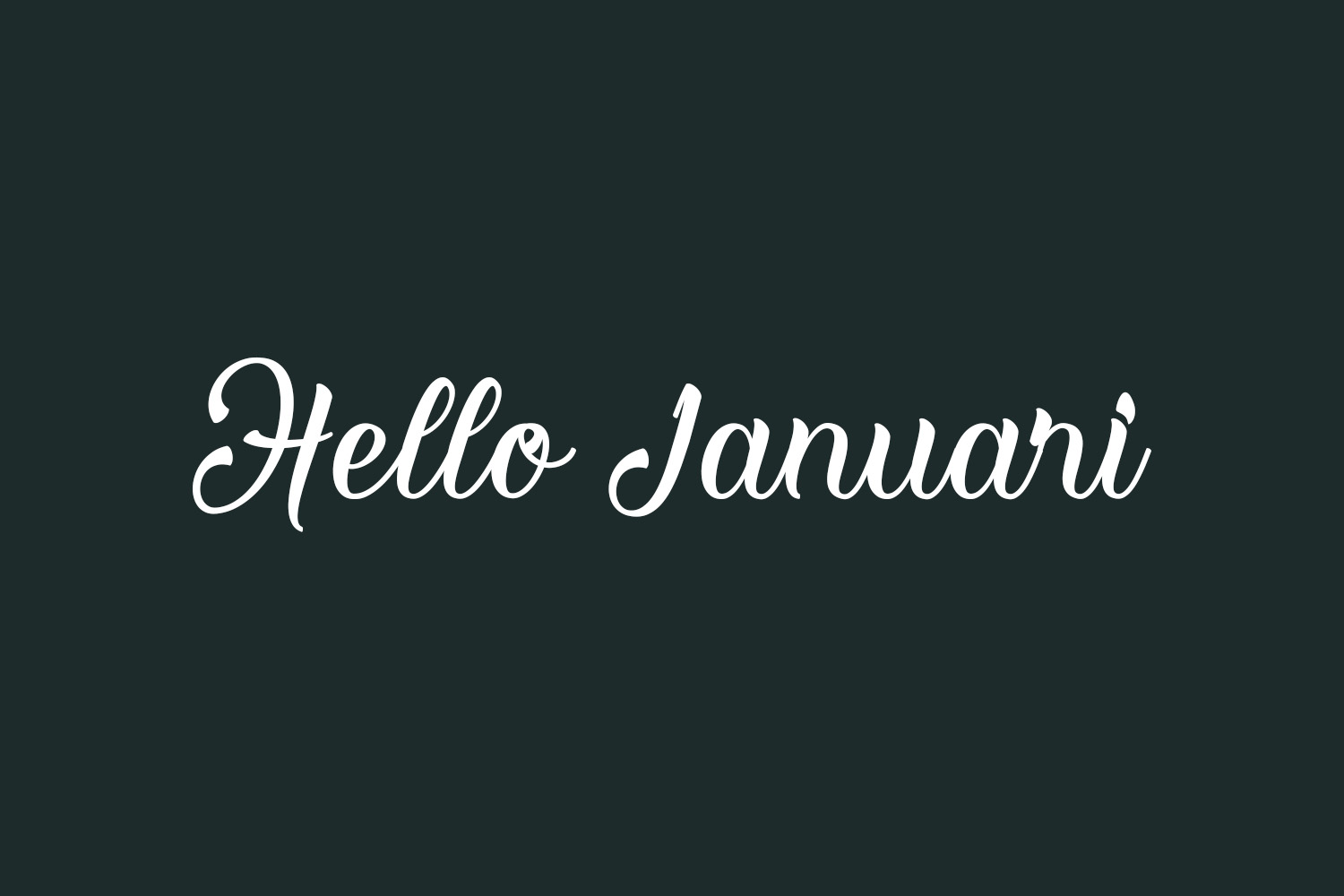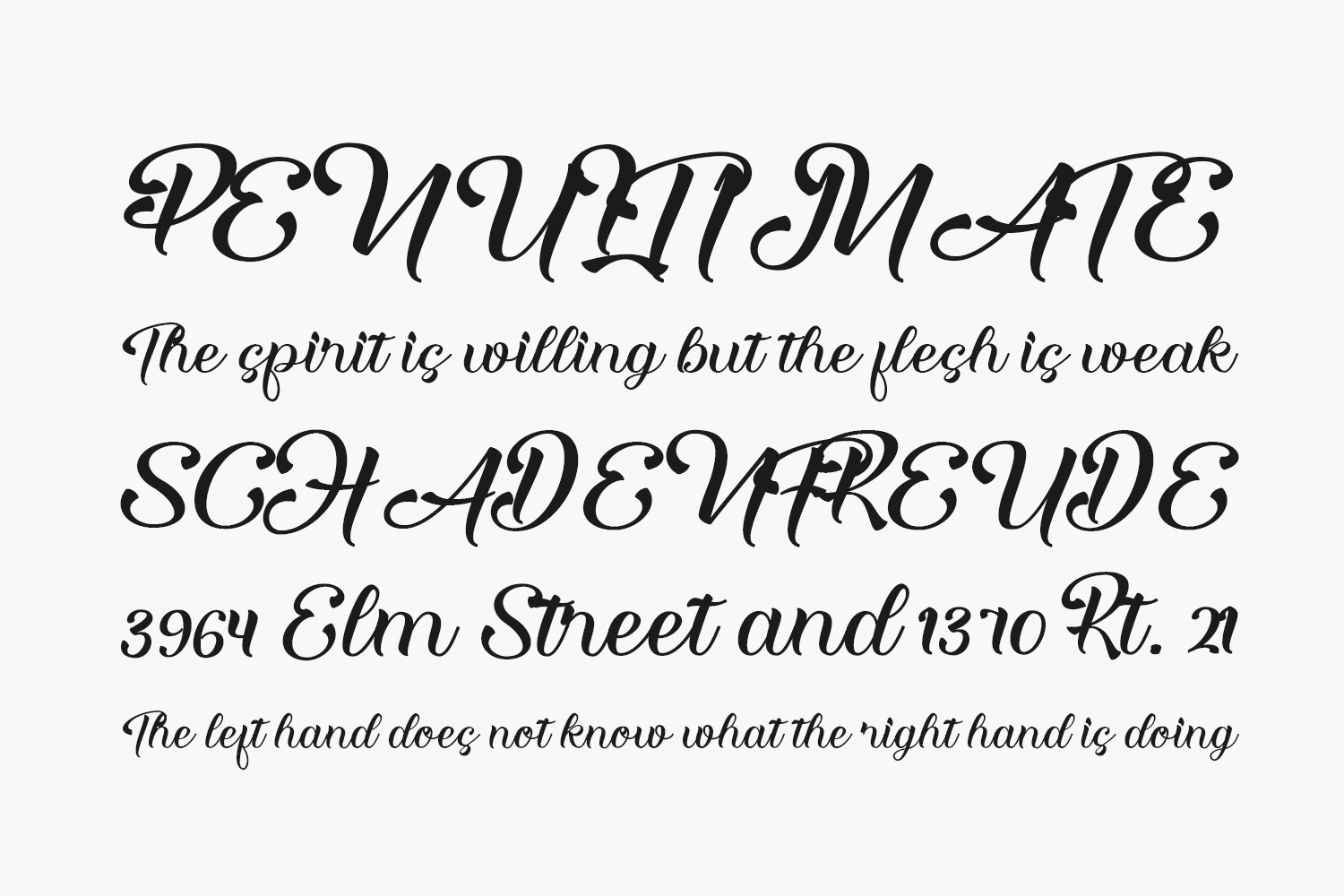
Greetings, Hello Januari Free Font is an adorable, rounded script font that strikes a perfect balance. Its trendy and stylish design will enhance all your creative projects. Hello Januari Free Font is free for personal use only. Please purchase the full version for commercial use.
Designed by Muhammad Akbar